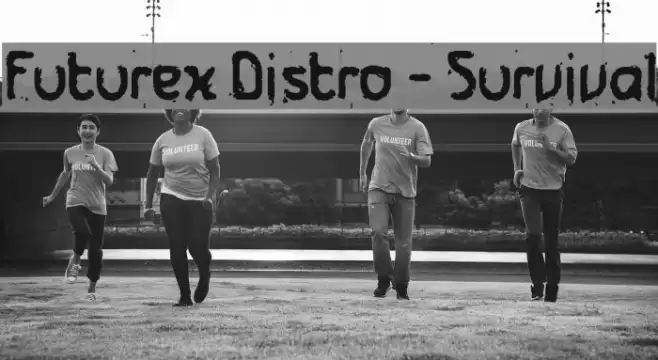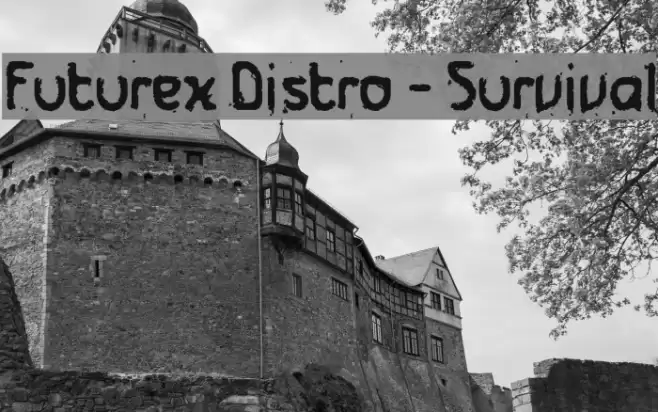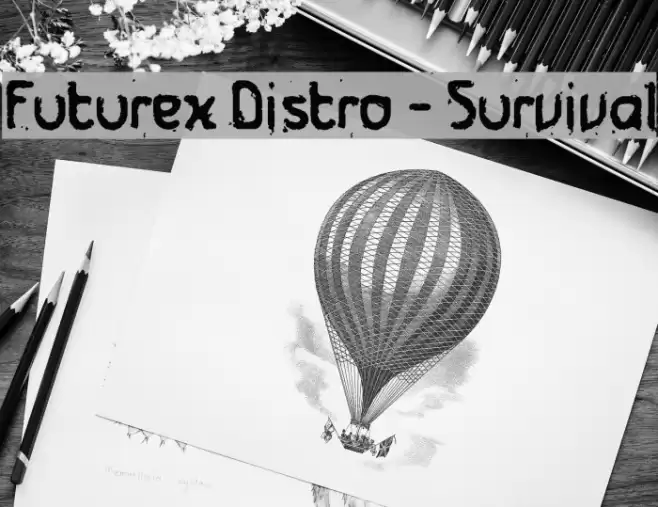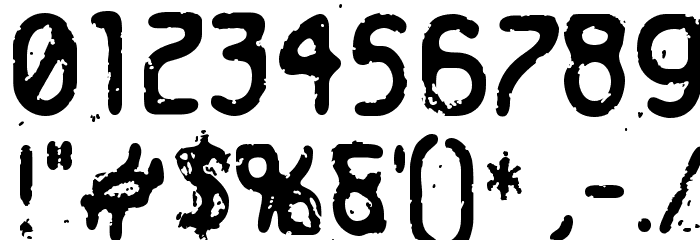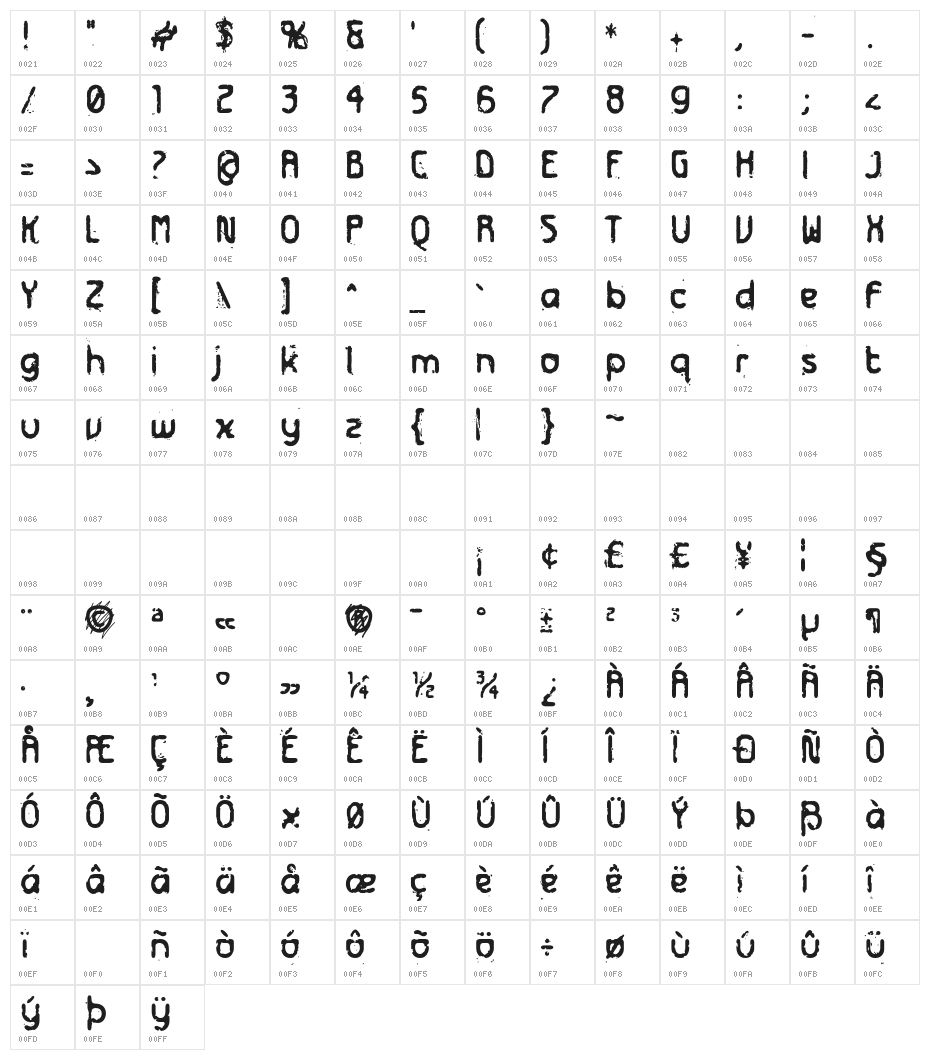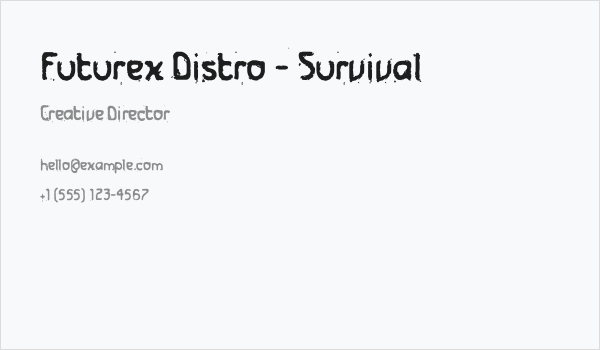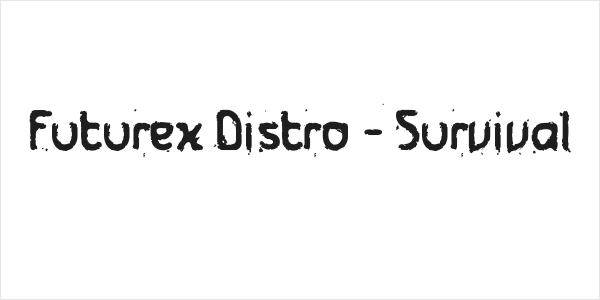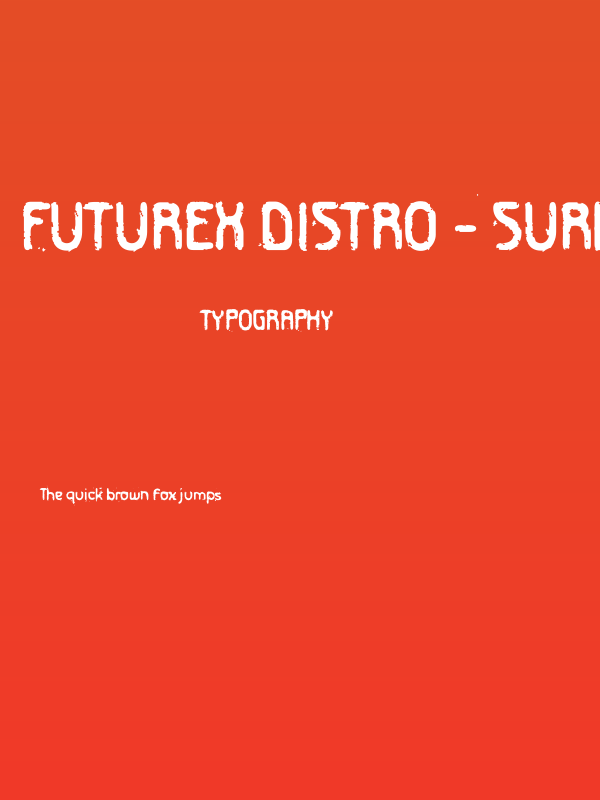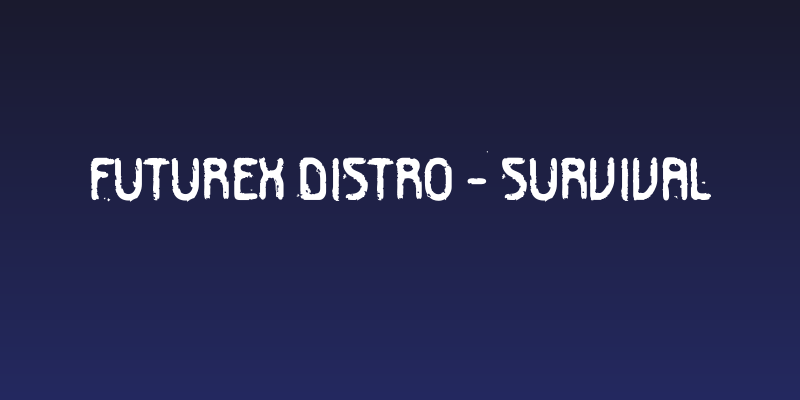
Futurex Distro - Survival Font
Futurex Distro - Survival Description
This font features a distressed, grunge style with a rough, textured appearance that gives it a worn and rugged look. The characters are bold and slightly irregular, adding to the chaotic and edgy aesthetic. The uppercase and lowercase letters maintain a consistent style, with rounded edges and a hand-drawn feel. The numerals and special characters follow the same distressed pattern, making the font cohesive across all elements. This font is ideal for projects that require a gritty, urban vibe or a vintage, worn-out look.
A distressed, grunge-style font with a rugged, textured appearance from Futuristic fonts.
- Proposed Projects: Ideal for album covers, posters, streetwear branding, and any design needing a gritty, urban aesthetic.
- Overall Style: Grunge, Urban, Vintage